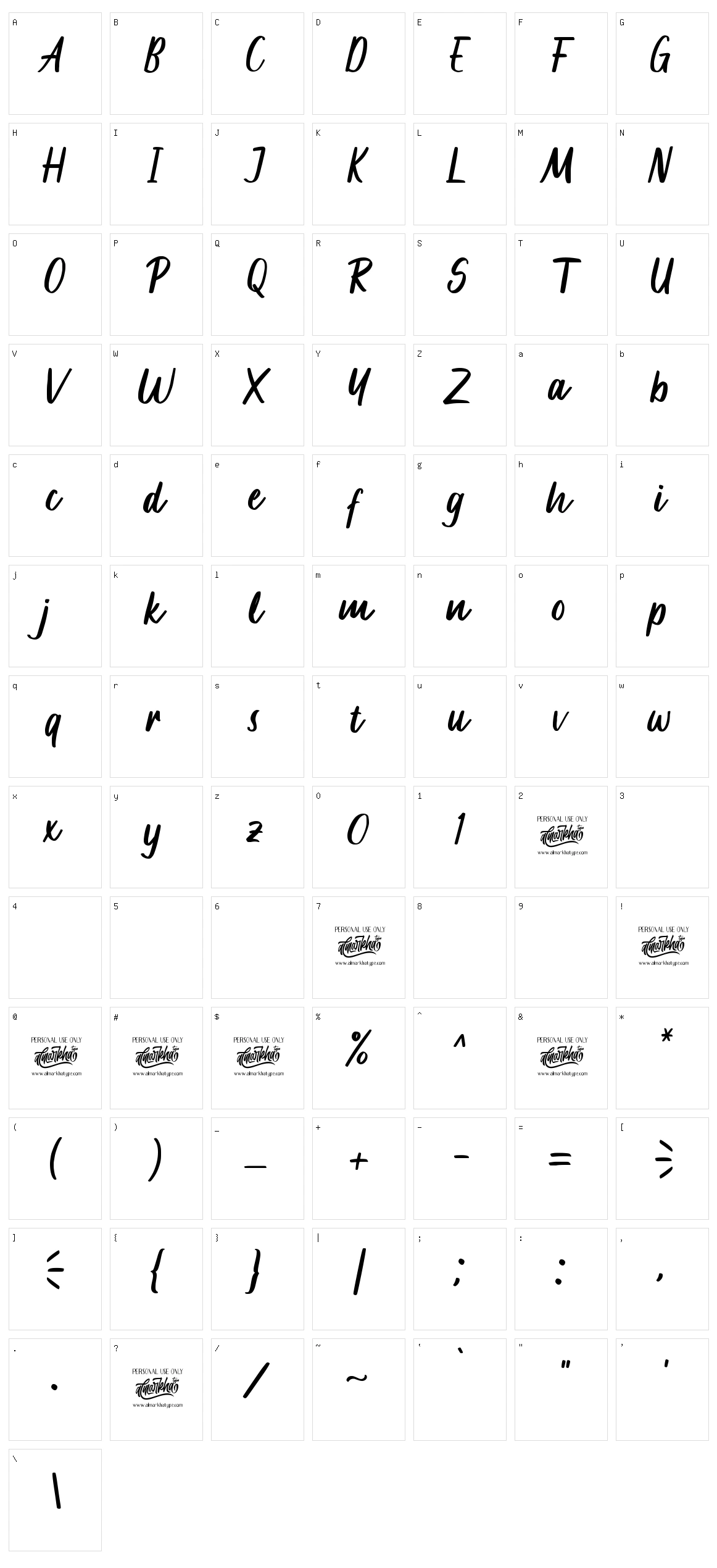
The free font Mochalosta is carefully designed by Almarkhatype, showcasing a thoughtful balance of creativity and usability and falls under the Script font style. When you download the ZIP file, it contains only 537.32 KB of font files, making it lightweight and quick to download. Please review the license details below to understand permitted usage and distribution rights. If license information is not available, we recommend using this font for personal projects only or contacting the author directly for commercial usage permissions.